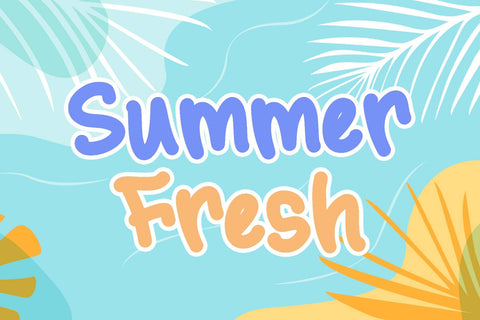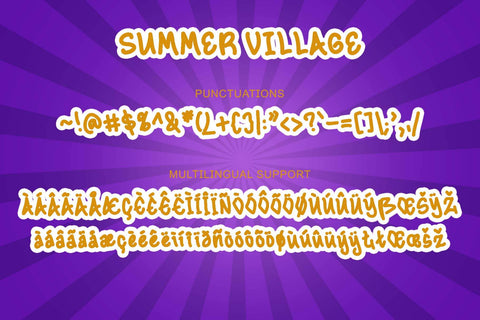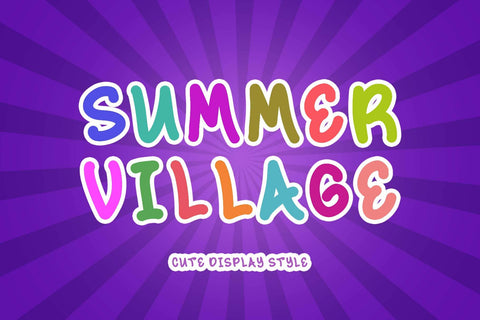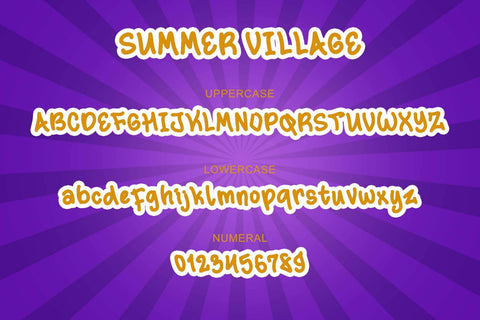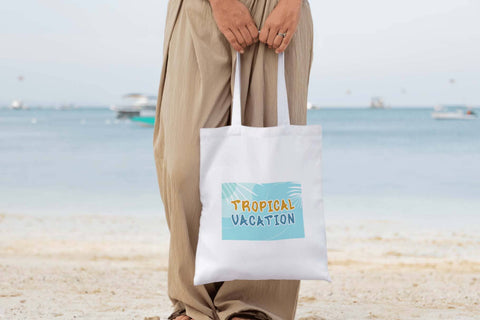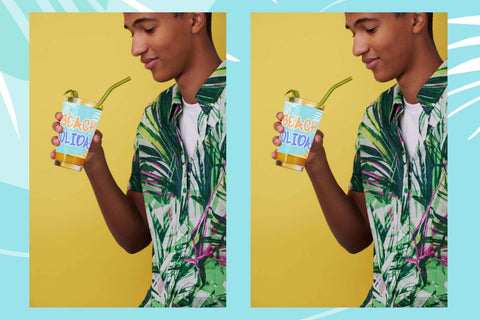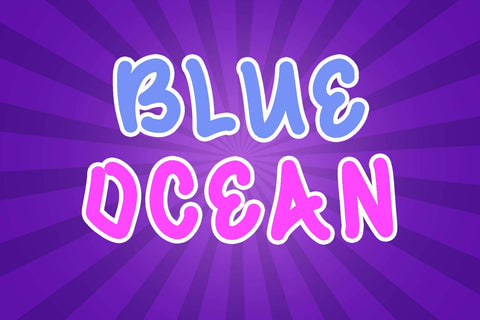
Summer Village
"Summer Village" is a cute and playful display font. This font is equipped with uppercase, lowercase, numerals, punctuations and multilingual support. Very suitable for logos, banners, posters, prints, stickers, comics, magazines, tumblers, t-shirts, Christmas, summer, Father's Day and others.